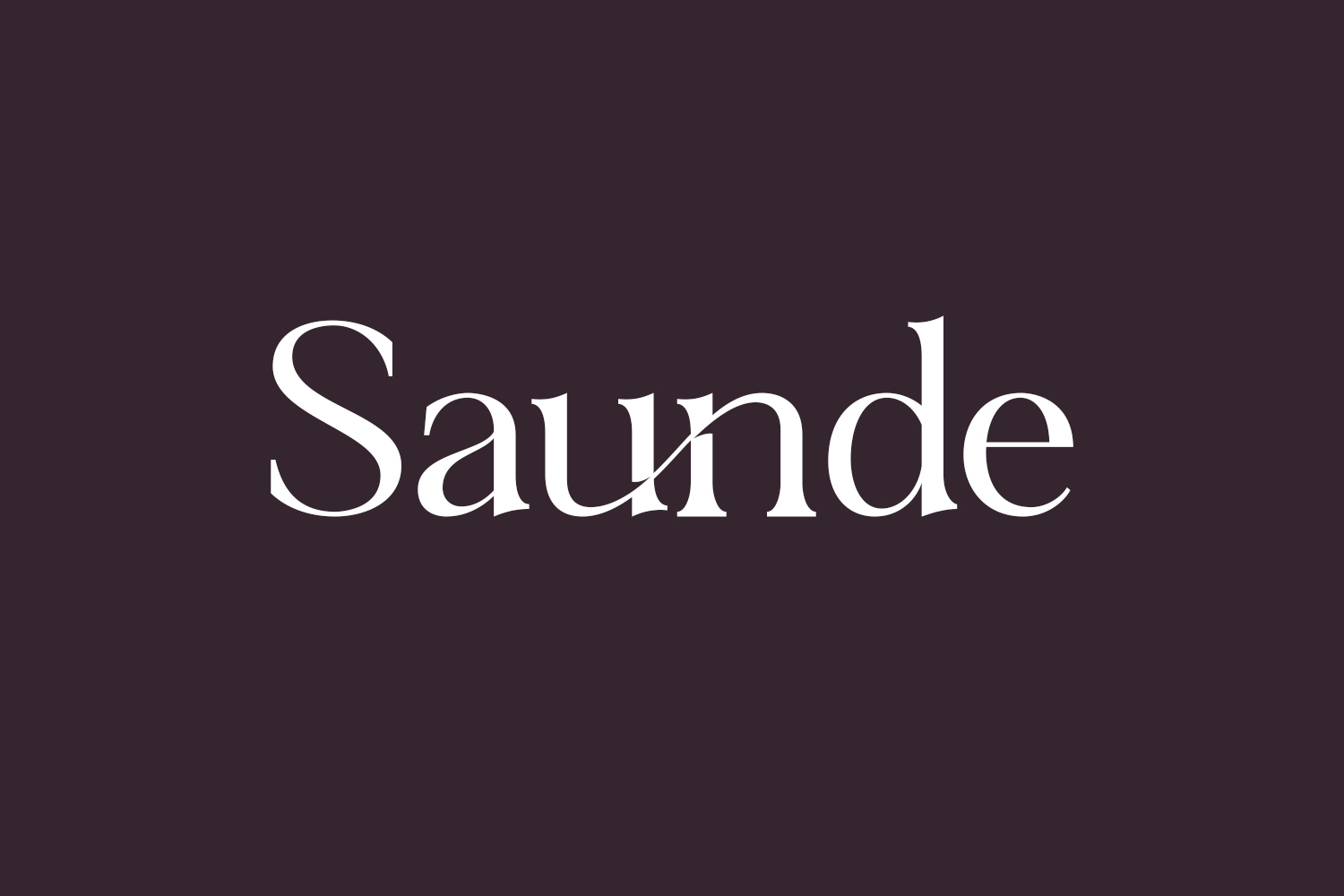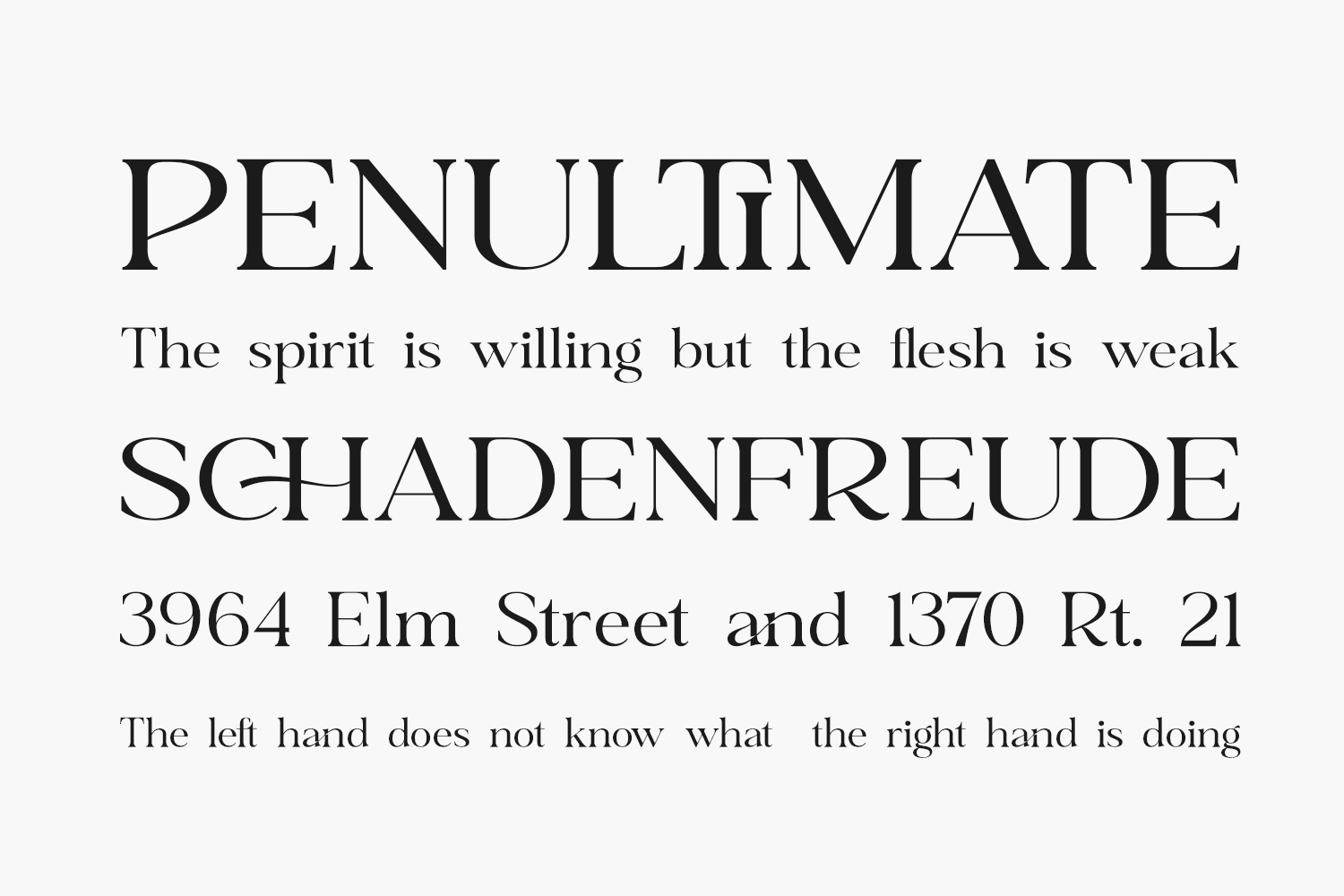
Saunde Free Font presents a contemporary yet timeless serif font, boasting a distinctive style and sophisticated appearance. Ideal for crafting elegant and luxurious logos, designing book or movie titles, establishing a fashion brand, creating captivating magazine layouts, fashioning clothing labels, crafting exquisite lettering, and enhancing impactful quotes, this versatile typeface elevates various creative projects. Saunde Free Font is free for personal use only. Please purchase the full version for commercial use.